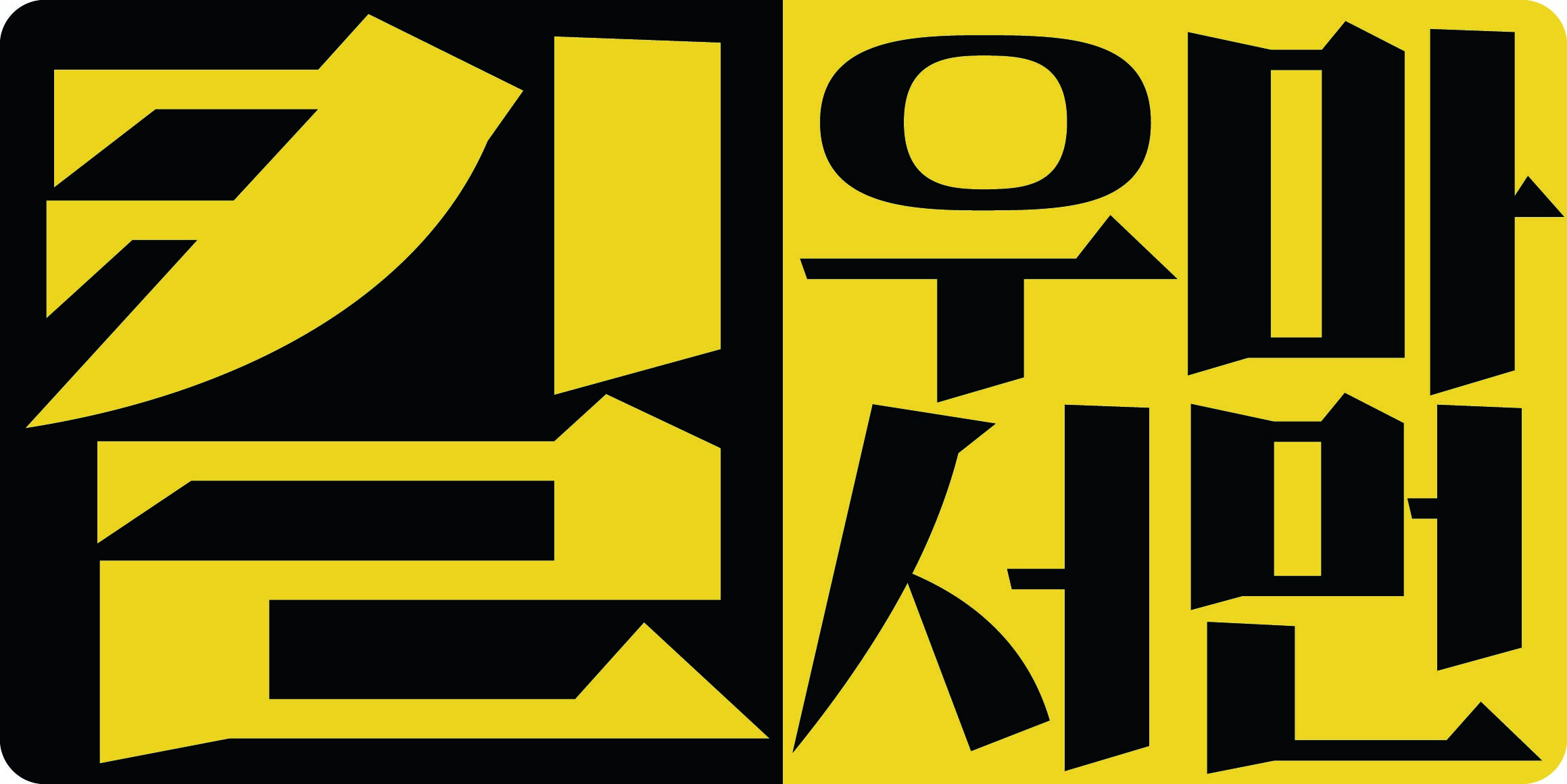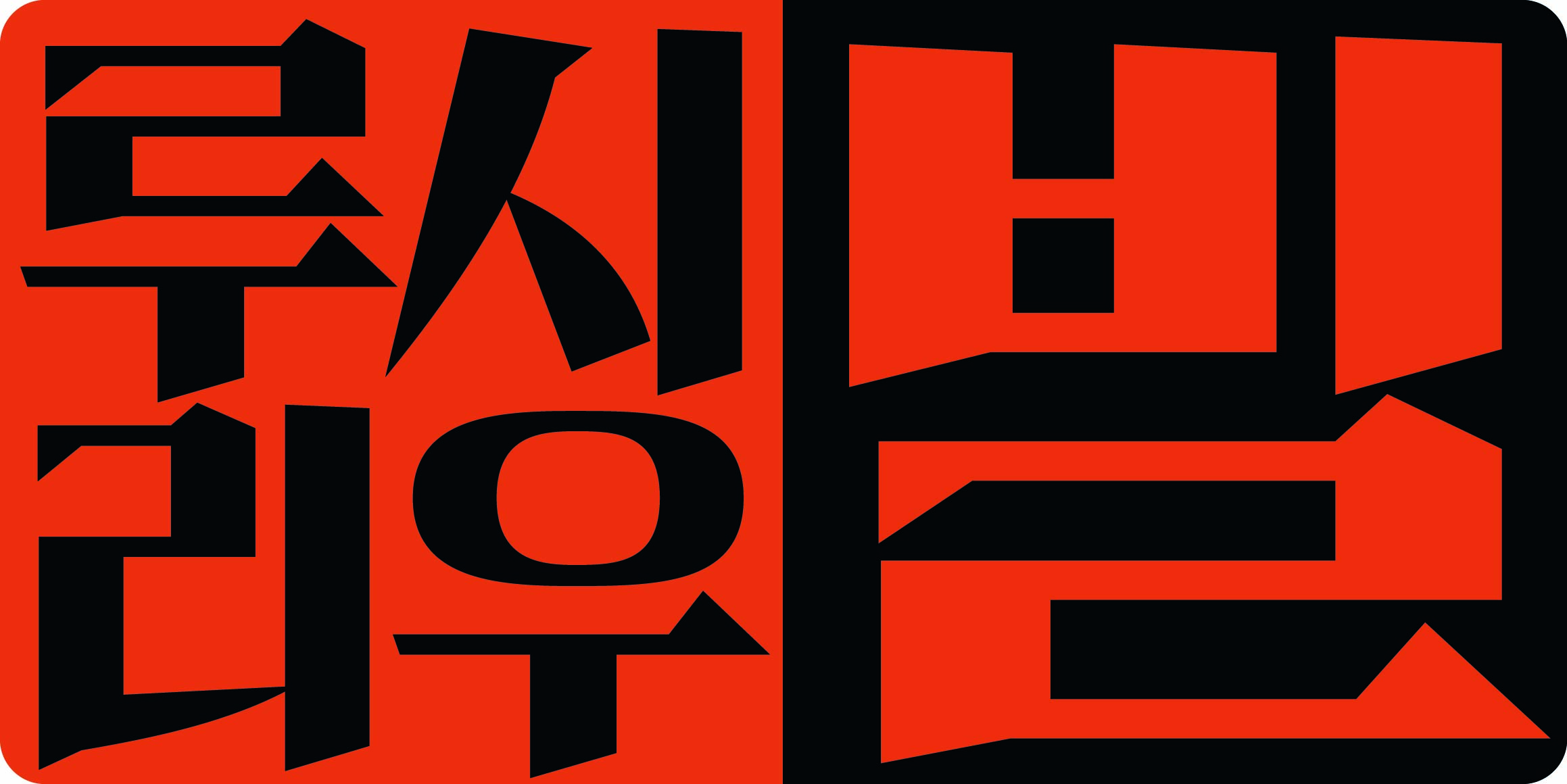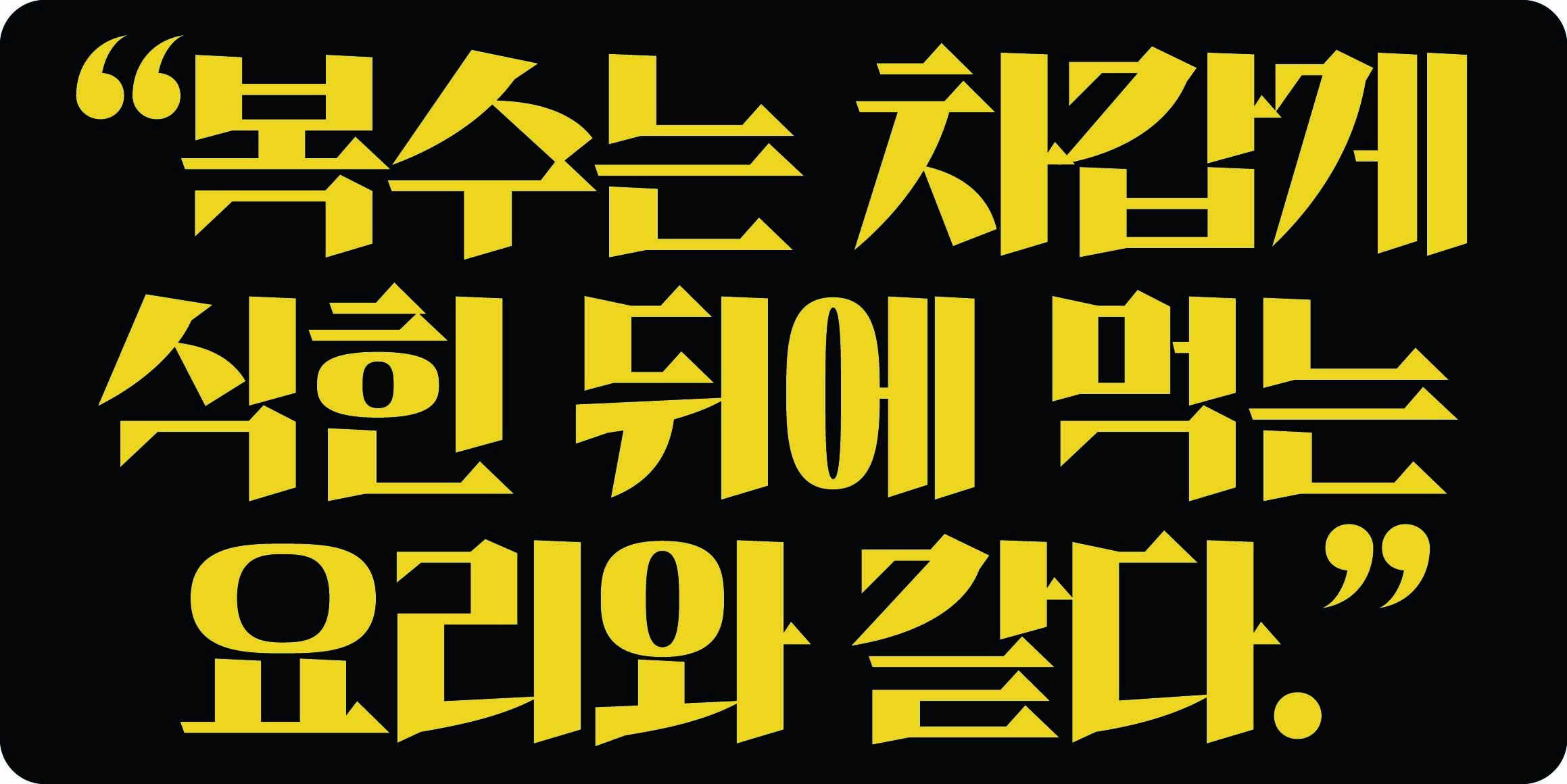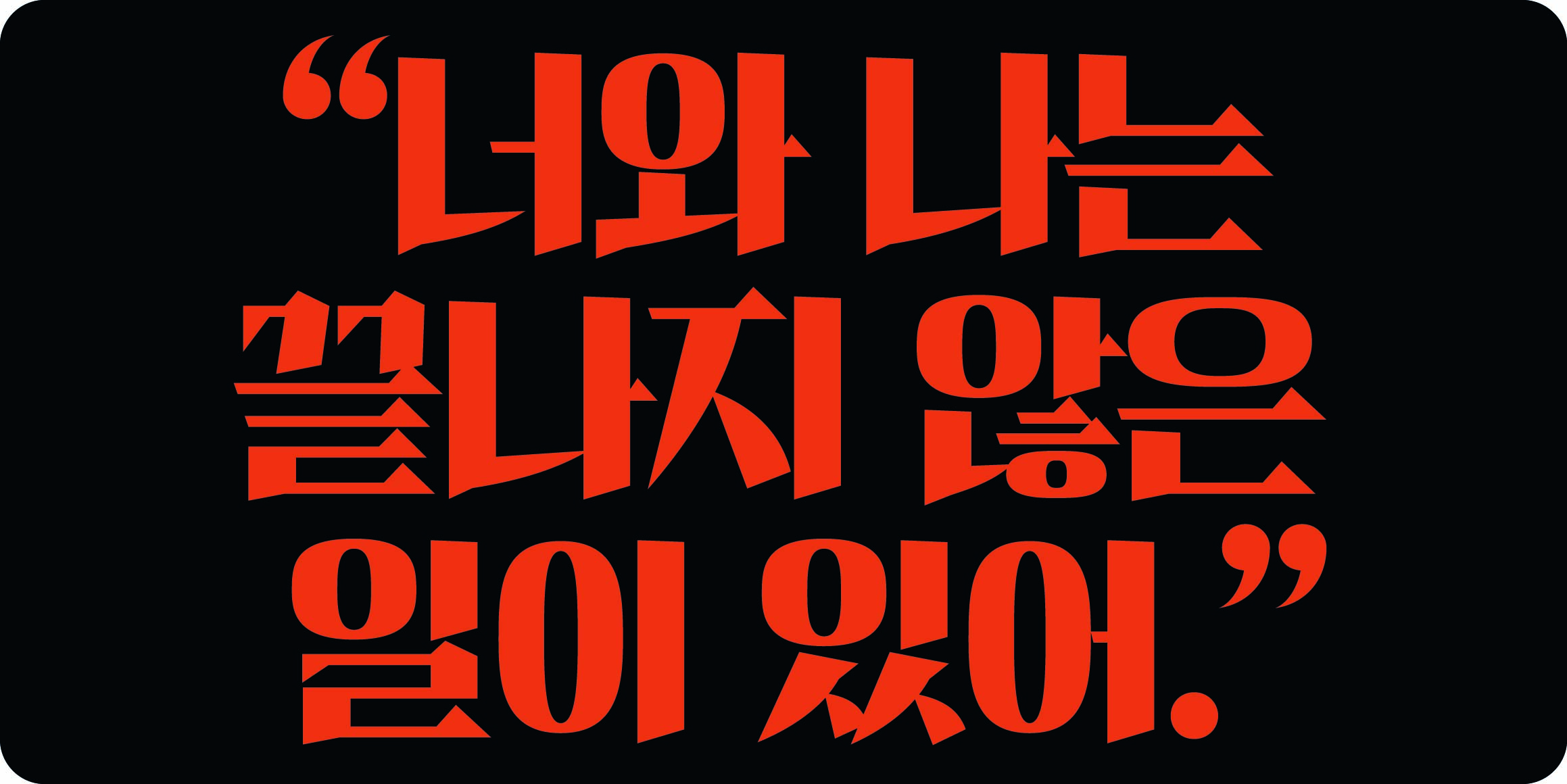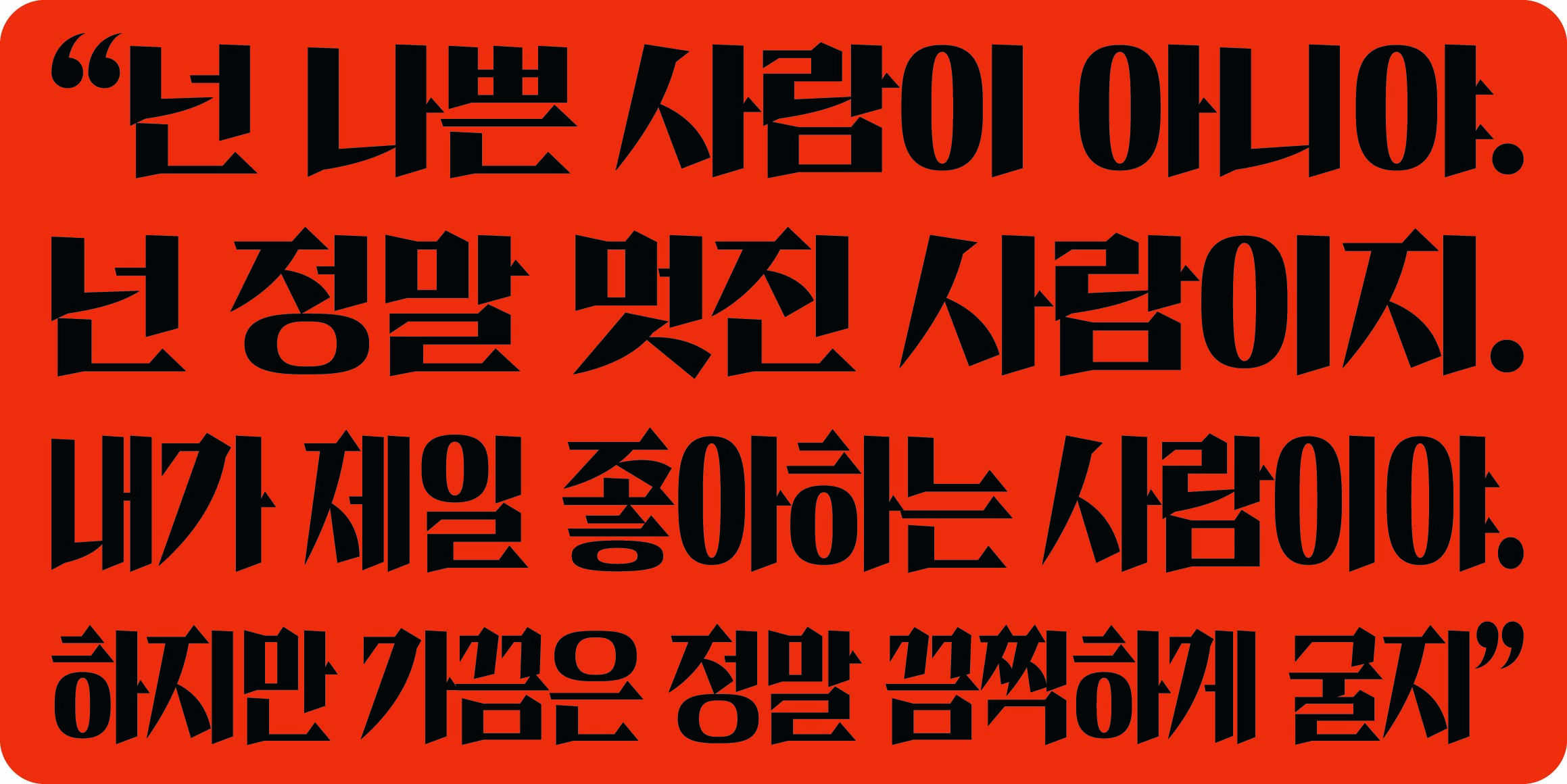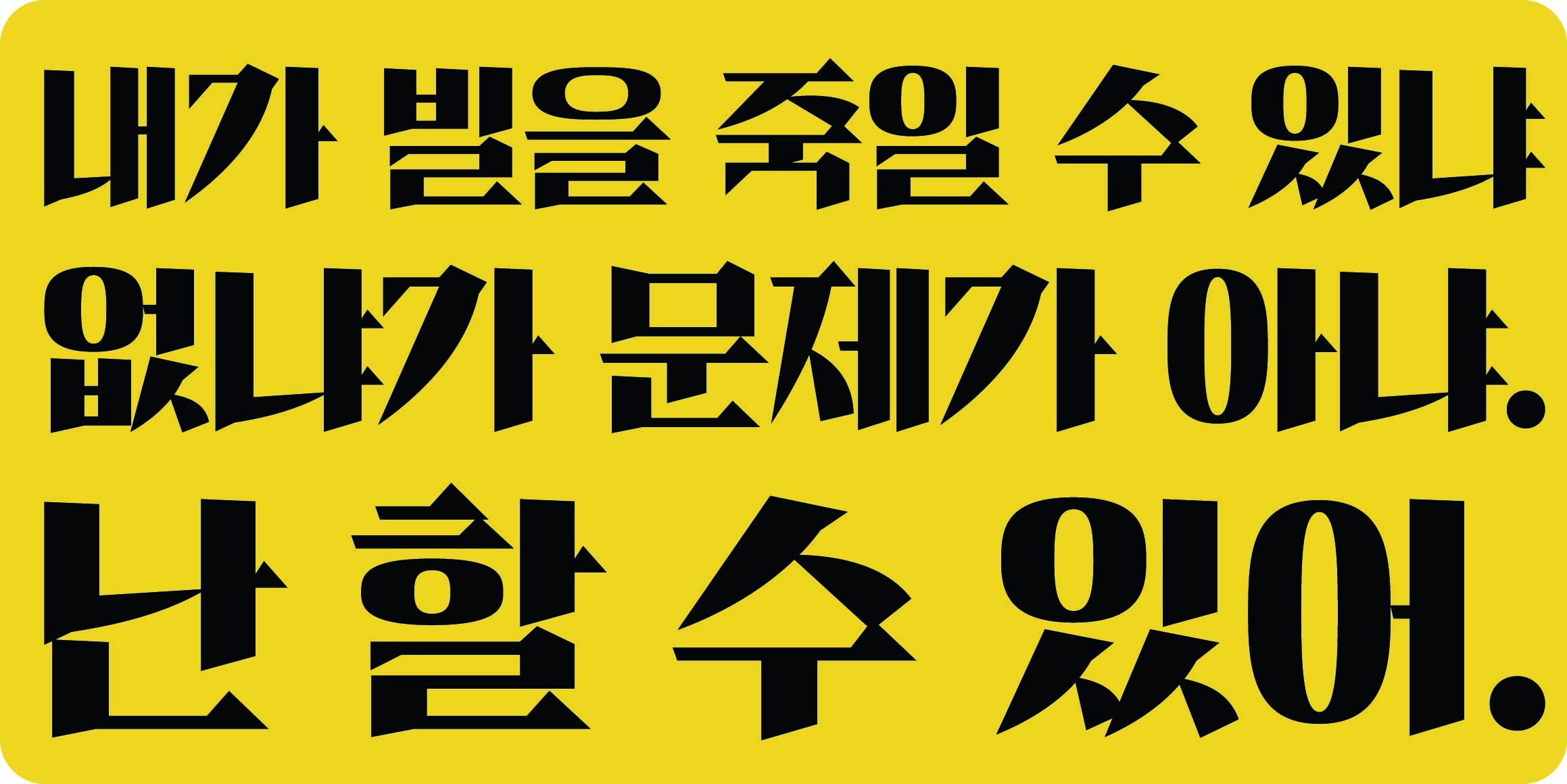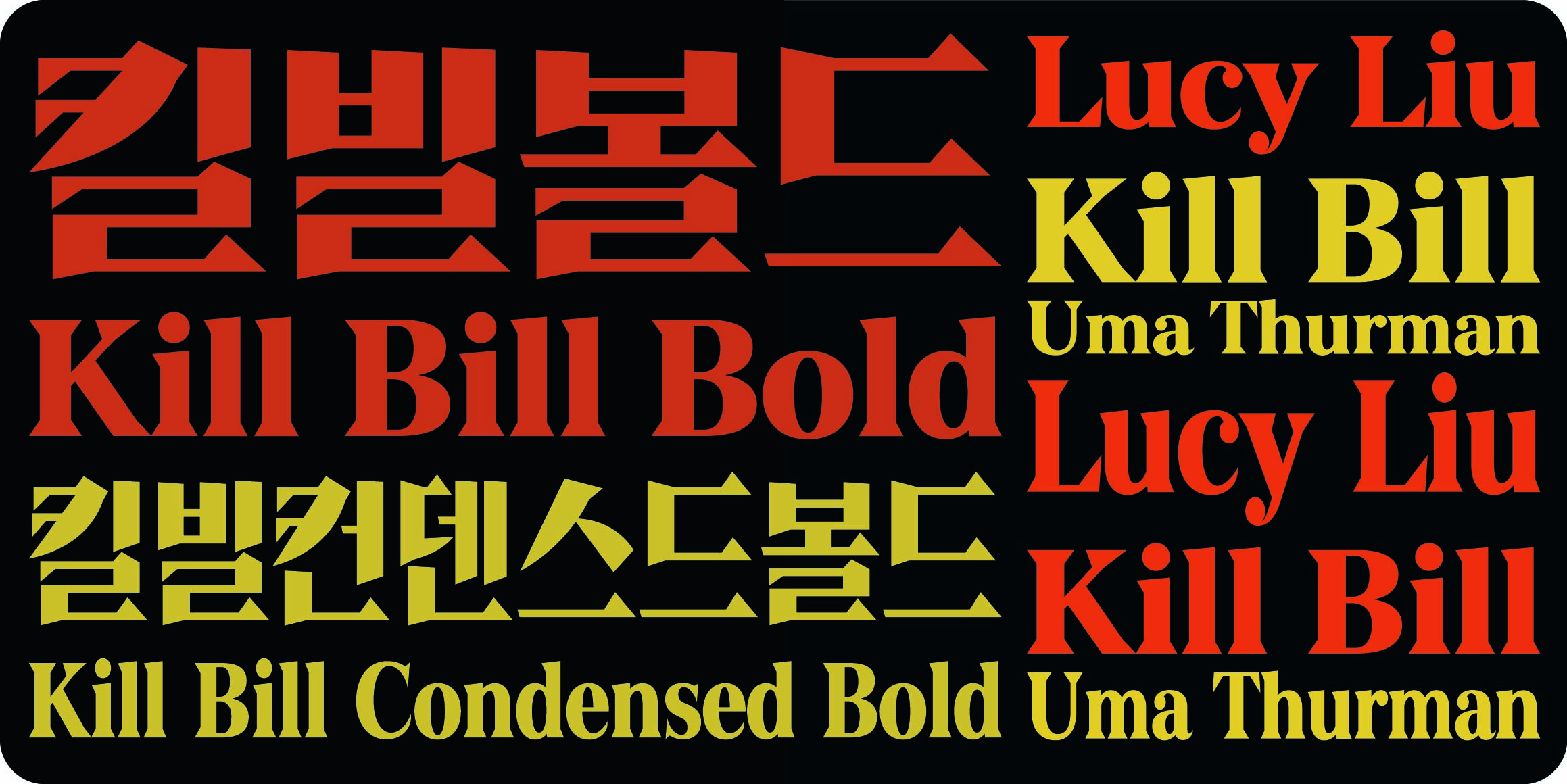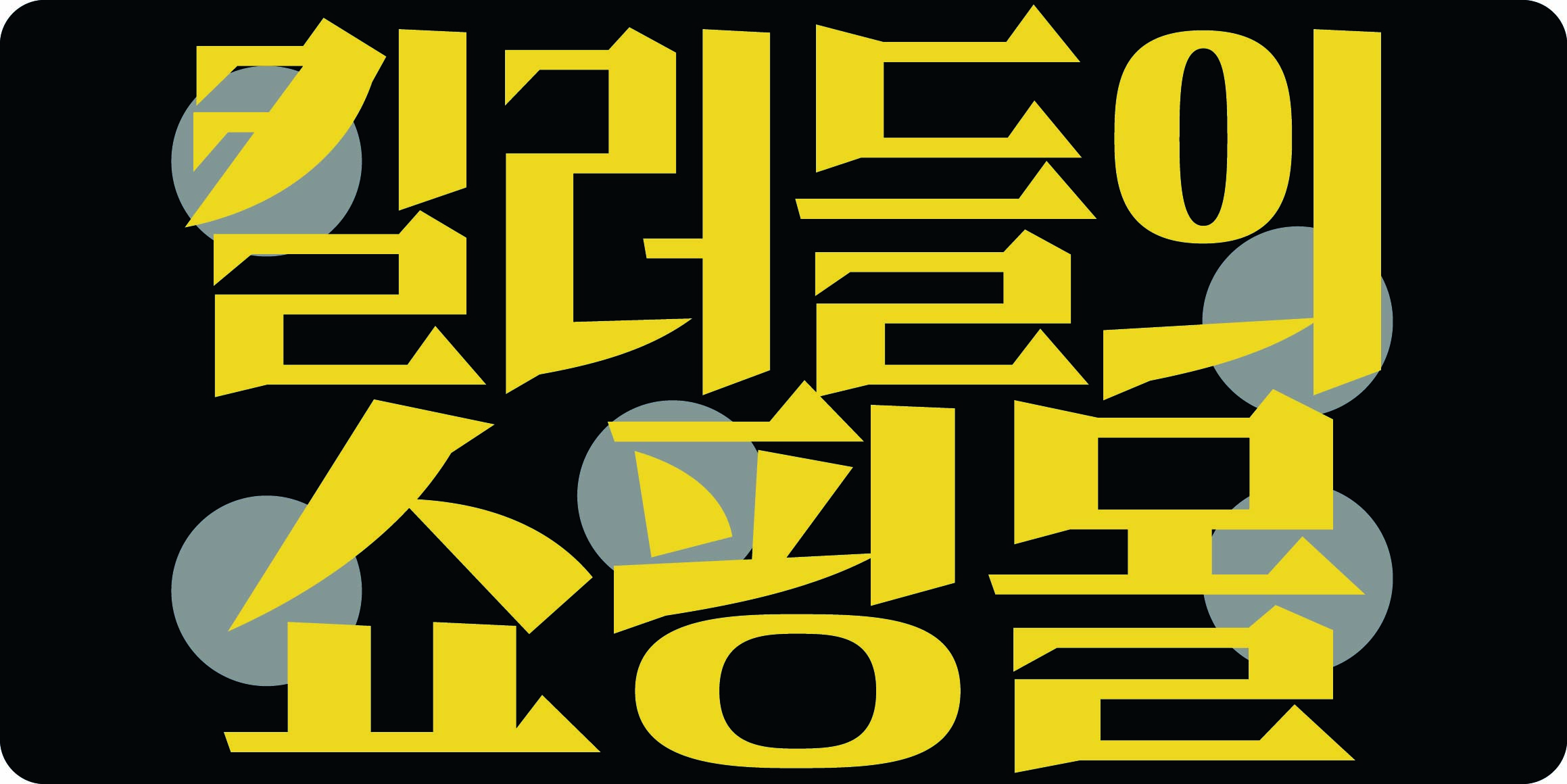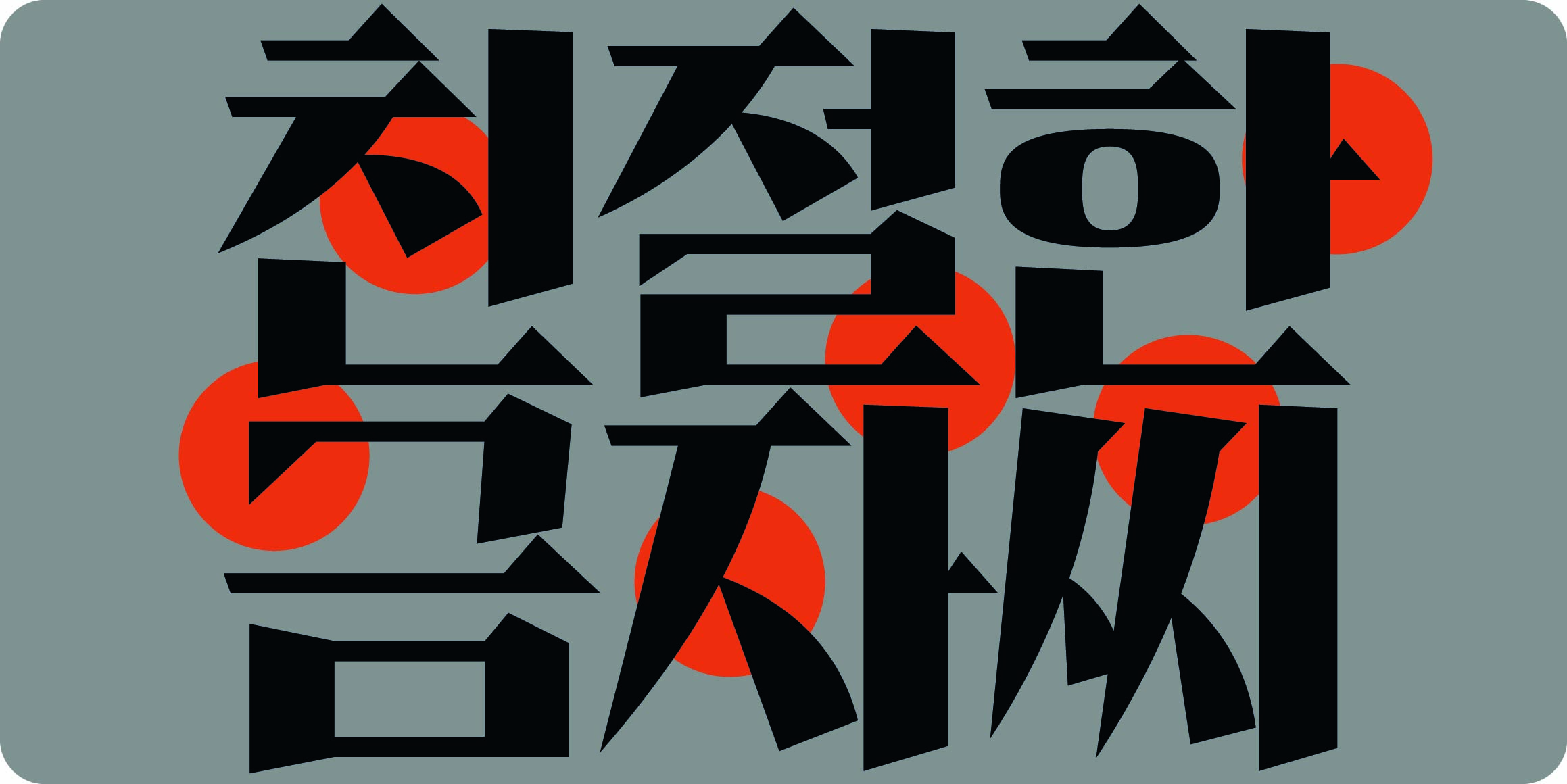
DRKillbill
Doctorfont
Kill Bill is a title font characterized by sharp serifs and strong design that stands out, modernly reinterpreting the structure of traditional Chinese characters to fill rectangular boxes. While emphasizing symmetry and straight elements, it expresses strength and dynamism through serif details. Additionally, it harmonizes retro sensibilities with modern aesthetics, making it suitable for projects where visual impact is crucial, such as advertising, game titles, signage, and book titles. It delivers a strong message and high visibility, and is available in two weights: Bold and Bold Condensed.
• Lee Ho